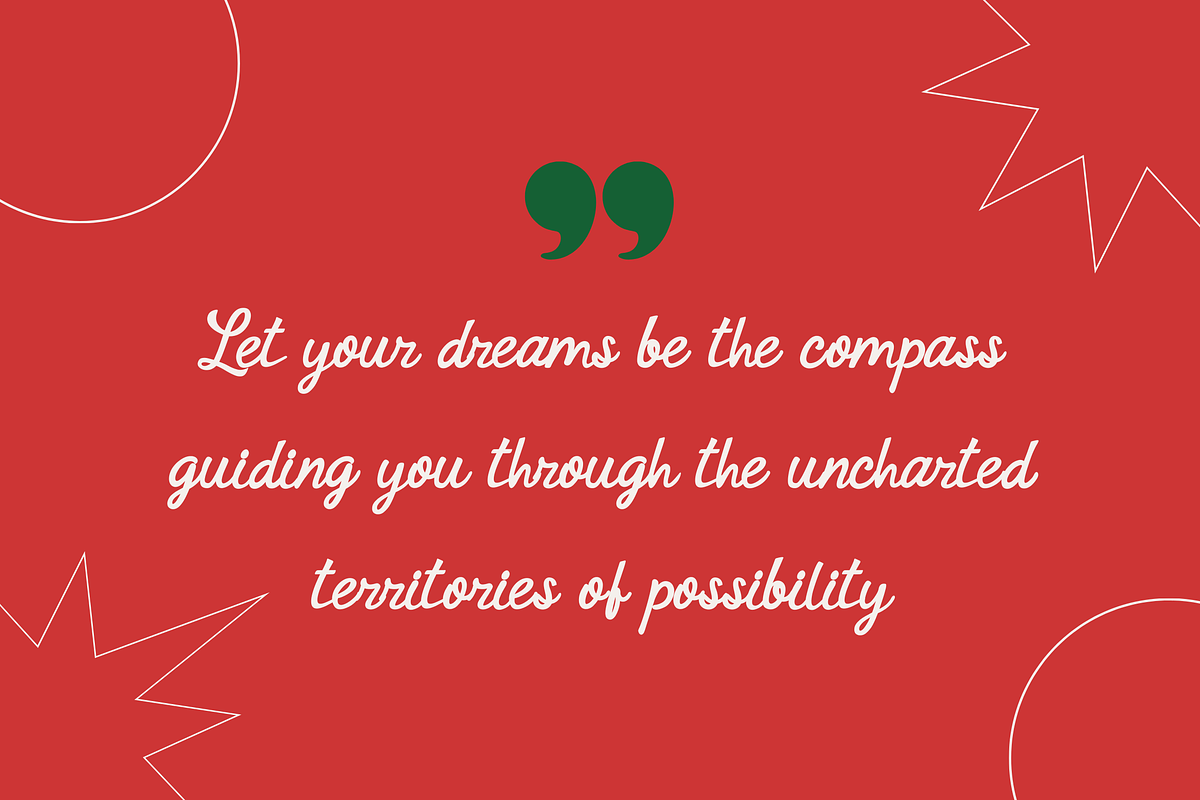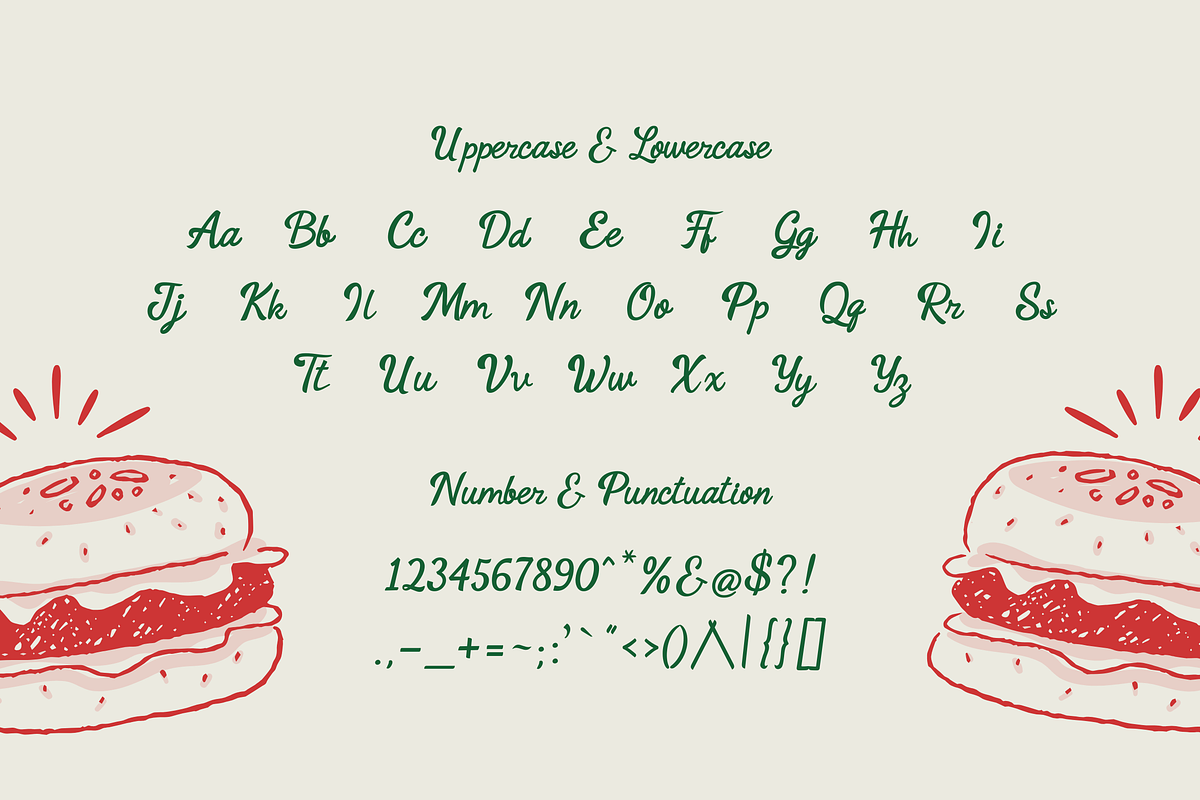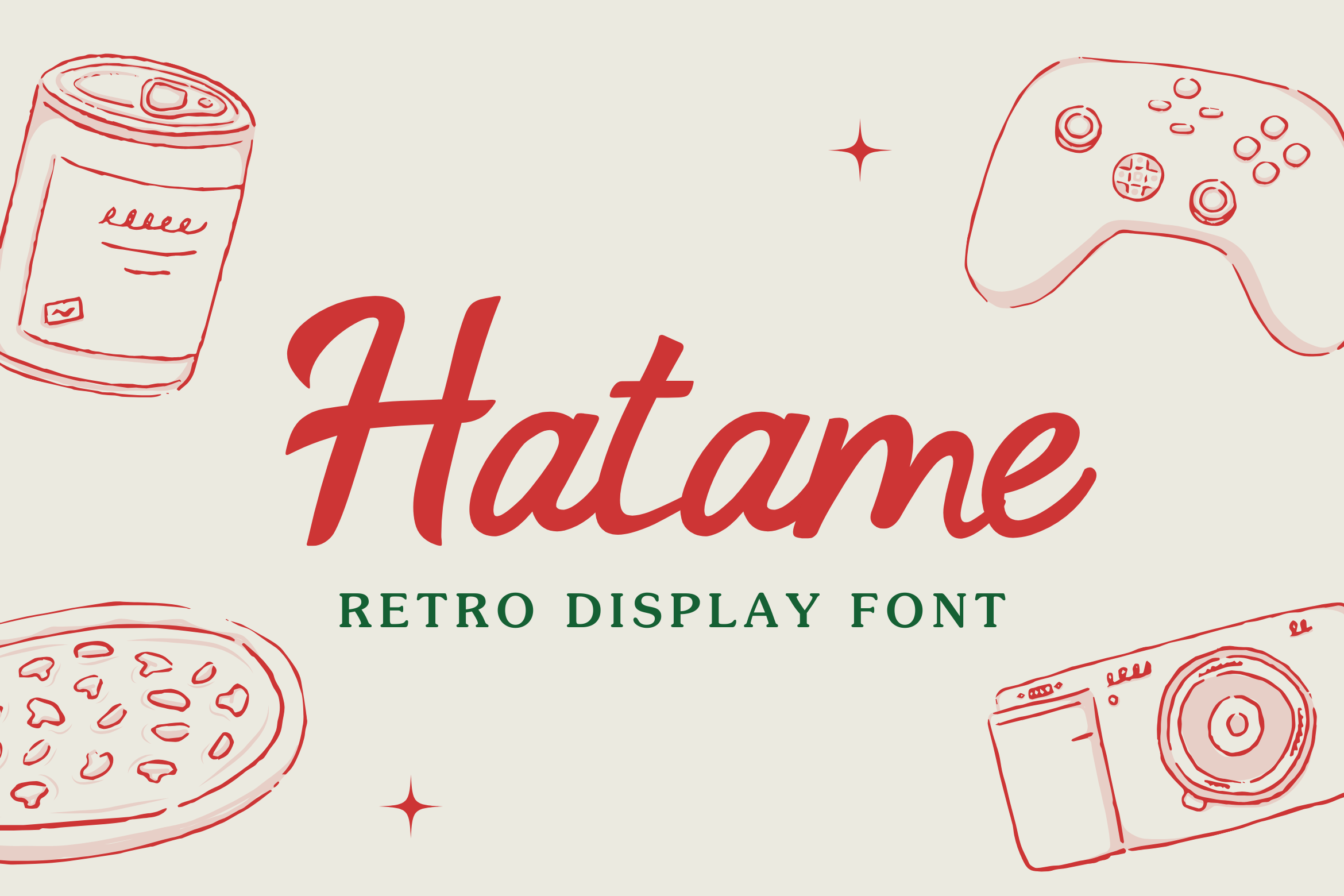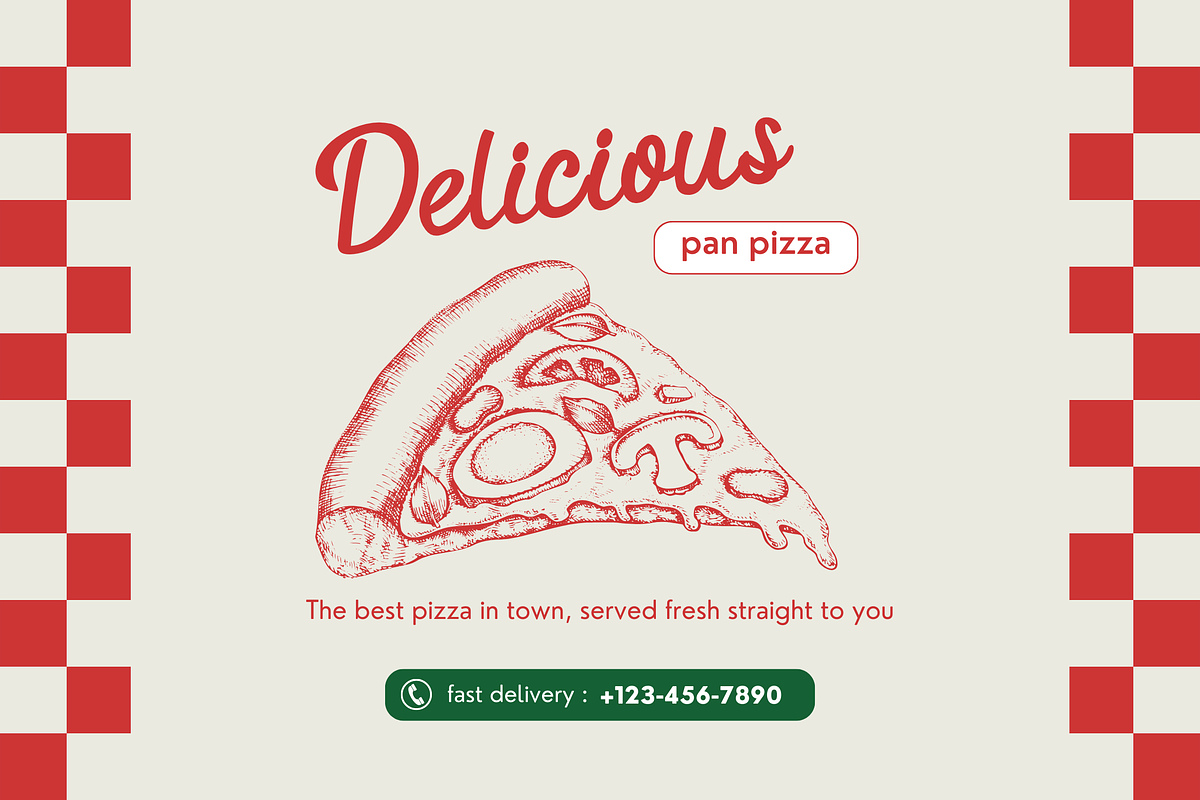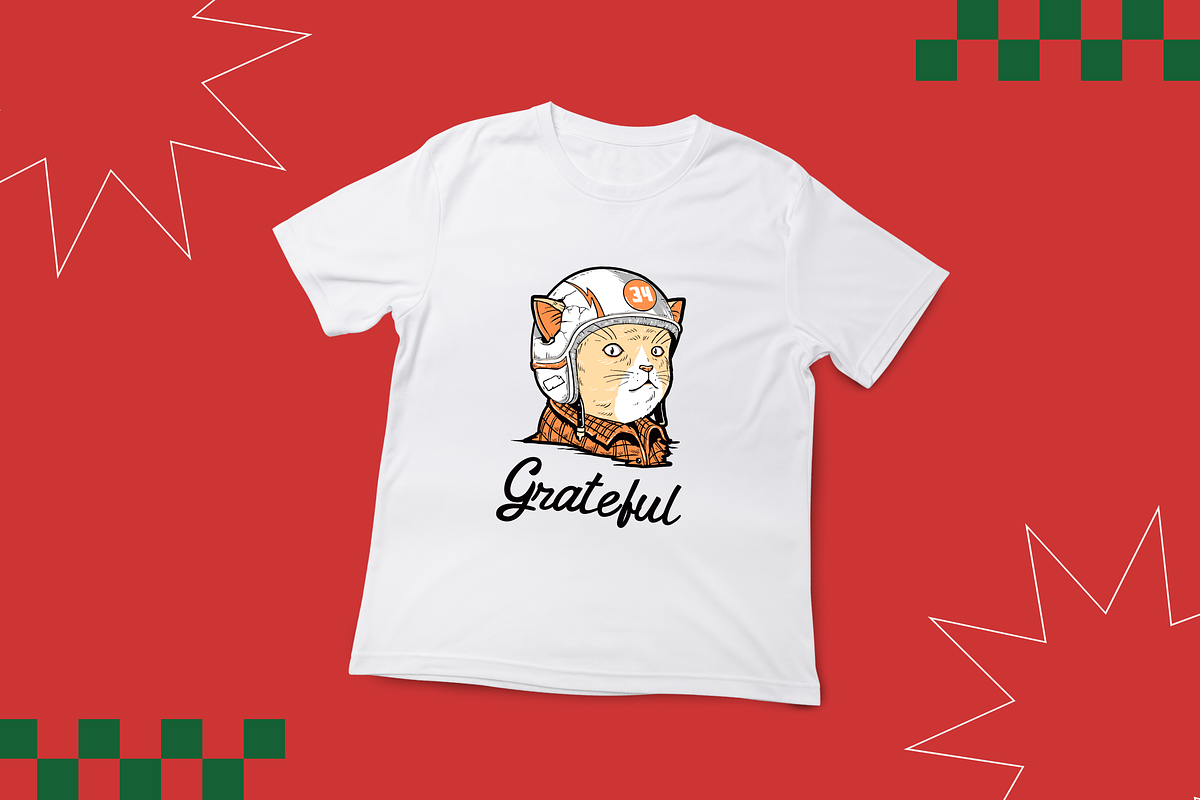
Hatame | Handwritten Font
Hatame font is characterized by a script & handwritten font with a cool and modern letter design. The script & handwritten font style also adds a simple and attractive feel that is approachable, making it a friendly and attractive choice for any project.